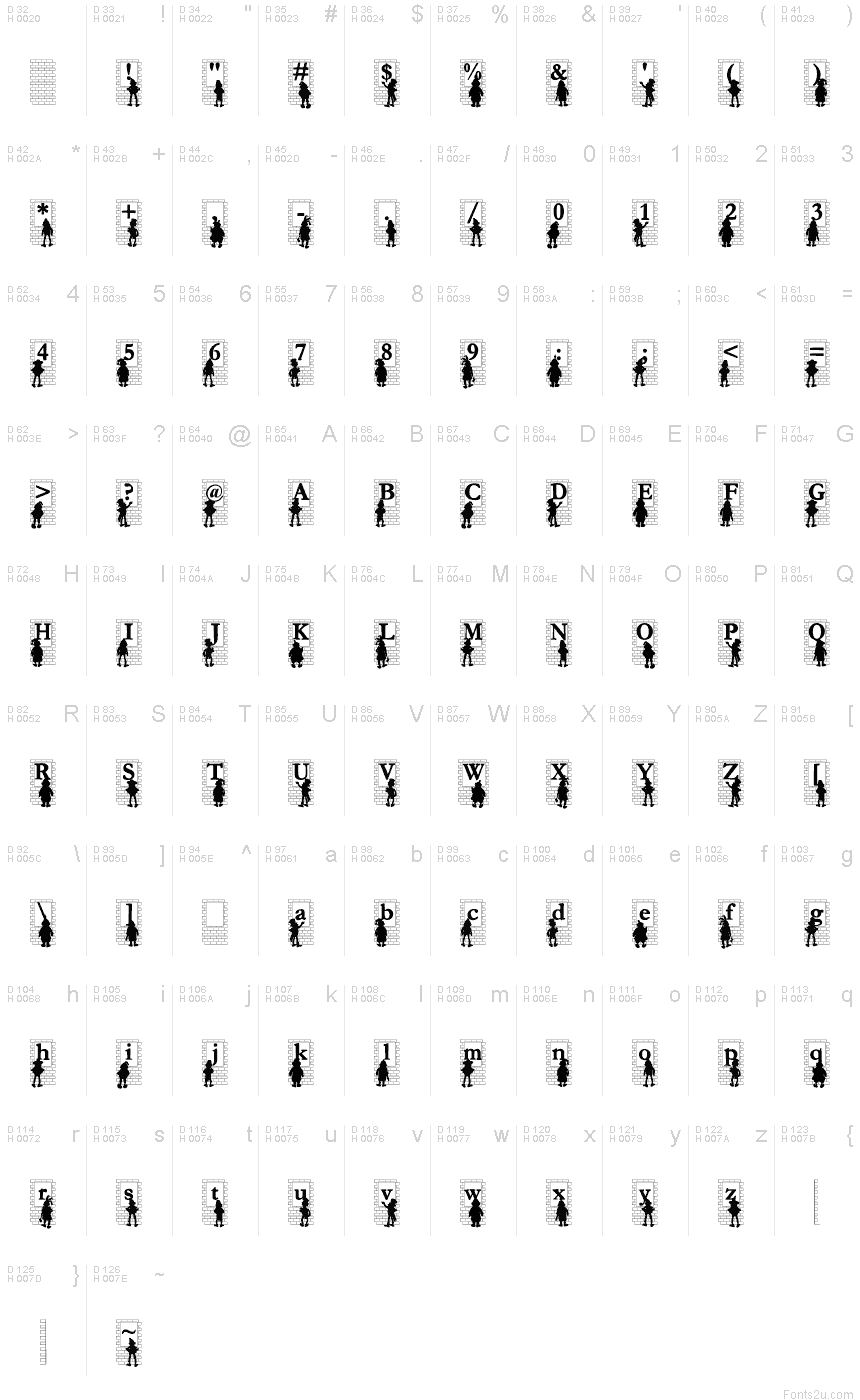
Billboard
Billboard font by West Wind Fonts is a free decorative display typeface that turns every word into a tiny stage scene. Chunky serif letters sit like printed posters against a brick wall, while solid black silhouettes of little figures gather underneath, giving each line of text a storybook, “caught in the act” feel. It’s bold, playful, and a bit mischievous-like street theatre translated into type.
Using Billboard, headlines instantly feel like illustrations, so it shines on children’s book covers, party invitations, school fair posters, storytime flyers, themed banners, and quirky game titles. This free font works best big, where the silhouettes and brick texture can breathe; pair it with a simple sans serif for small supporting text so the cinematic scenes stay in the spotlight.